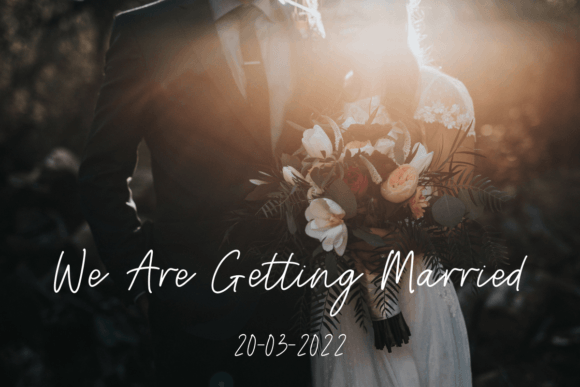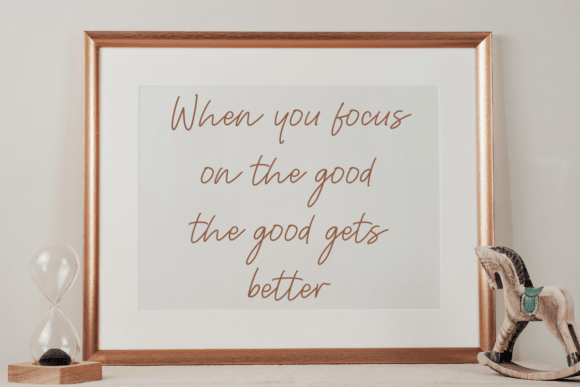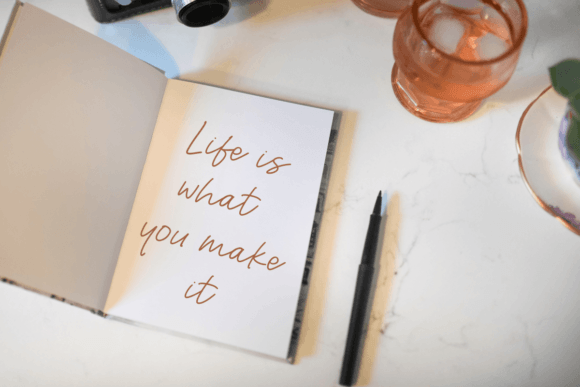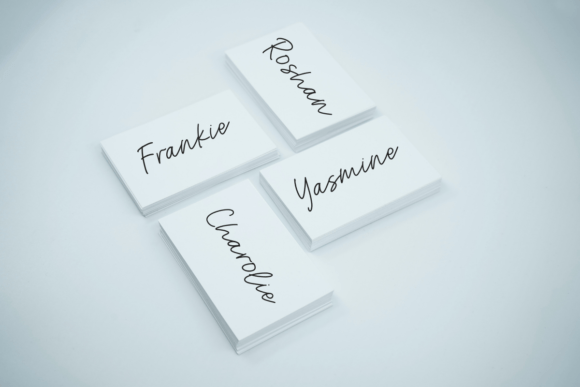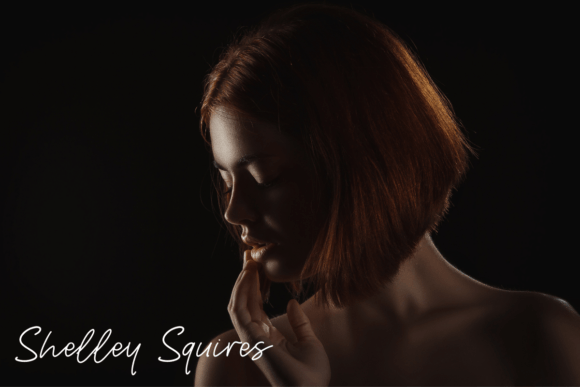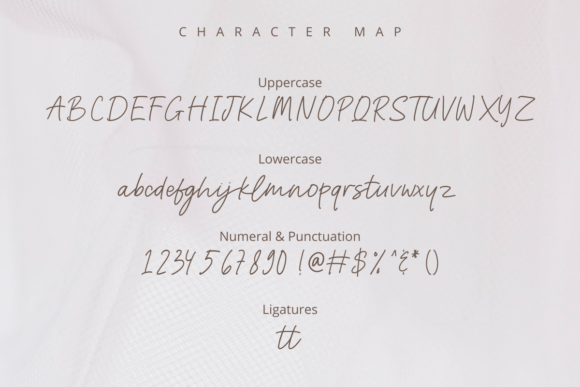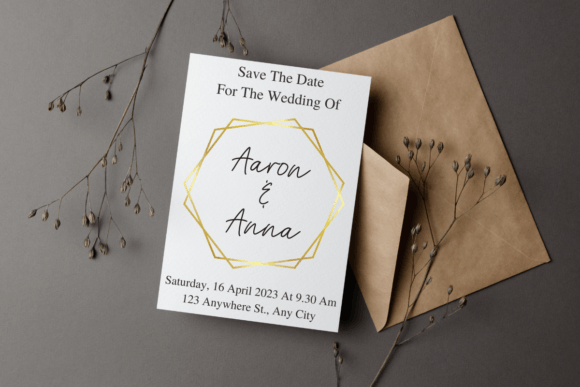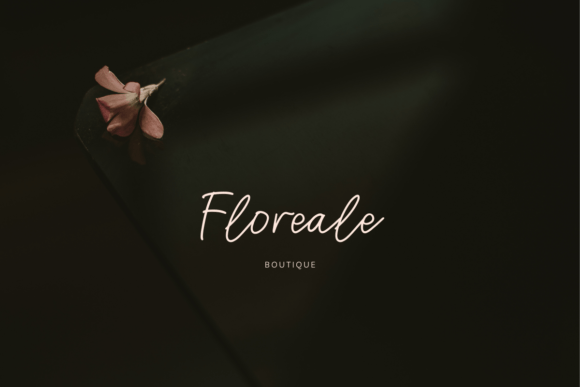
Jasmine Font
About Jasmine Font
Jasmine is not just a font; it’s a handwritten masterpiece that breathes life into every design it graces. Crafted with precision, Jasmine stands as the ideal choice for logos, branding, titles, and a diverse array of creative applications.
In the realm of branding, Jasmine emerges as a visual storyteller, weaving a tale of elegance and individuality. Its handcrafted nature transforms logos into distinctive signatures that resonate with sophistication. The fluid strokes and graceful curves of Jasmine create a timeless emblem, ensuring that your brand makes a lasting and memorable impact.
For titles and social media posts, Jasmine introduces an element of artistic expression. Its handwritten charm elevates ordinary text, turning it into a captivating visual experience. Whether used in headers or as part of a social media campaign, Jasmine adds a touch of personality that resonates with your audience.
In product packaging and design, Jasmine becomes the artistic touch that sets your creations apart. Its handwritten allure lends a sense of authenticity and warmth to labels, product packaging, and promotional materials. Jasmine invites consumers into a world where every detail is carefully crafted and thoughtfully presented.
Photography finds a perfect companion in Jasmine, where the handwritten script enhances the visual narrative. From special events to web design, Jasmine adapts seamlessly, adding a personal and charming layer to every project. Its versatility shines through in various contexts, making it a valuable asset for a wide range of creative endeavors.
Web design becomes an artistic canvas for Jasmine, where its expressive strokes create a harmonious blend of style and functionality. Whether used for headlines, body text, or special accents, Jasmine brings a cohesive and visually appealing element to your online presence.
Jasmine is more than a font; it’s a design companion that enhances the beauty of your projects. Its handwritten elegance adds a personal and authentic touch to every application, making it a versatile choice for those seeking a blend of sophistication and individuality. Choose Jasmine, and let your designs speak with the grace and charm that only a handwritten font can provide.